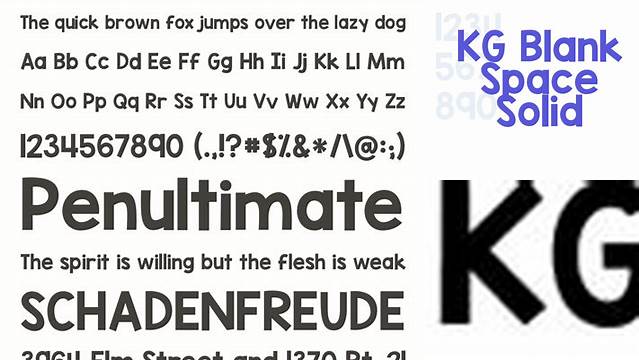
Hey guys! Are you looking for a super cool and versatile font? Look no further than the KG Blank Space Solid Regular font! This font is a total game-changer for designers, content creators, and anyone who just loves typography. It's clean, it's modern, and it's totally free to download. In this guide, we're going to dive deep into everything you need to know about this awesome font, from where to download it to how to use it in your projects. So, buckle up and let's get started!
What is KG Blank Space Solid Regular Font?
The KG Blank Space Solid Regular font is a beautifully crafted typeface designed by Kimberly Geswein. It's known for its clean lines, solid fill, and highly legible design, making it perfect for a wide array of applications. This font strikes a balance between modern and classic, giving it a timeless appeal that can enhance any project. Whether you’re designing a logo, creating social media graphics, or even just working on a presentation, KG Blank Space can add that professional touch you're looking for. Its simplicity is its strength, allowing it to pair well with other fonts and design elements without overpowering them. Plus, the fact that it's available for free makes it an incredible asset for both personal and commercial projects. So, if you’re seeking a font that combines elegance, versatility, and accessibility, KG Blank Space Solid Regular is definitely one to consider. The best part? You can easily incorporate it into your workflow and start creating stunning designs right away!
Using KG Blank Space Solid Regular Font in Graphic Design
When it comes to graphic design, the KG Blank Space Solid Regular font is a real powerhouse. Its clean and minimalist design makes it incredibly versatile, fitting seamlessly into a wide range of projects. Whether you're designing a sleek logo, eye-catching social media graphics, or a professional-looking website, this font has got you covered. One of the best things about KG Blank Space is its readability. The clear, solid characters ensure that your message gets across loud and clear, no matter the size or application. This is especially crucial for logos and branding materials, where legibility is key. Plus, its neutral style means it pairs well with other fonts, giving you the freedom to create dynamic and visually appealing designs. Think of pairing it with a script font for a touch of elegance or a bold sans-serif for a modern, edgy look. The possibilities are endless! When using KG Blank Space in your graphic design projects, don’t be afraid to experiment with different sizes, weights, and colors to see what works best for your specific needs. With a little creativity, you can transform this simple font into a design masterpiece. So go ahead, unleash your inner designer and see what you can create with KG Blank Space!
KG Blank Space for Logo Design
Logos are the face of a brand, and choosing the right font is crucial. The KG Blank Space Solid Regular font is an excellent choice for logo design due to its clean, modern, and highly legible style. A logo needs to be instantly recognizable and convey the brand's personality, and KG Blank Space's simplicity allows it to do just that. Its solid, bold characters make a strong statement, ensuring the logo stands out whether it's displayed on a website, business card, or billboard. The font’s neutrality also means it can be adapted to suit various industries and brand aesthetics. Imagine it in a sleek, minimalist tech logo or a bold, modern retail brand. The versatility of KG Blank Space allows designers to create logos that are both timeless and contemporary. Moreover, the font’s readability ensures that the brand name remains clear and memorable, even at smaller sizes. This is particularly important for logos that need to look good in a variety of contexts, from social media profiles to printed materials. When incorporating KG Blank Space into a logo, consider the overall brand identity and how the font can complement it. Play with spacing, kerning, and the addition of graphic elements to create a unique and impactful logo. With its clean lines and solid presence, KG Blank Space can help you create a logo that truly represents your brand.
Social Media Graphics with KG Blank Space Font
In the fast-paced world of social media, grabbing attention is key, and the right font can make all the difference. The KG Blank Space Solid Regular font is perfect for social media graphics because it’s clean, modern, and easy to read – even on small screens. Think about it: your social media posts need to stand out in a sea of content, and a font that’s both eye-catching and legible is a huge advantage. KG Blank Space excels in this area. Its clear, bold characters ensure that your message is delivered loud and clear, whether you're creating Instagram stories, Facebook posts, or Twitter headers. Plus, its versatile style means it can be used for a wide range of content, from promotional graphics to inspirational quotes. One of the best things about using KG Blank Space for social media is how well it pairs with other design elements. You can easily combine it with vibrant colors, engaging images, and other fonts to create visually stunning graphics that capture your audience's attention. Experiment with different sizes, weights, and colors to see what works best for your brand’s aesthetic. And because KG Blank Space is so readable, you can be confident that your followers will be able to quickly and easily digest your message. So, if you’re looking to elevate your social media game, KG Blank Space is definitely a font worth adding to your toolkit. It’s a simple yet powerful way to make your content shine!
Creating Presentations with KG Blank Space
When you're putting together a presentation, you want your slides to be clear, professional, and visually engaging. The KG Blank Space Solid Regular font is an excellent choice for presentations because it ticks all those boxes. Its clean, minimalist design ensures that your text is easy to read, even from the back of the room. And let's face it, nobody wants to squint at blurry, illegible slides! KG Blank Space's readability makes it perfect for headlines, body text, and even bullet points. The font’s neutrality also allows your content to take center stage. It doesn't distract from your message; instead, it enhances it by providing a clean and polished look. Plus, it pairs well with other design elements, like graphs, charts, and images, so you can create a cohesive and professional presentation. Another great thing about KG Blank Space is its versatility. Whether you're giving a formal business presentation or a more casual talk, this font fits the bill. It’s modern enough to feel current but also classic enough to be timeless. When using KG Blank Space in your presentations, think about using it in different sizes and weights to create visual hierarchy. Use it for headlines to make them pop and for body text to ensure readability. With KG Blank Space, you can create presentations that not only look great but also effectively communicate your message. It’s a surefire way to impress your audience!
KG Blank Space in Website Design
Your website is often the first impression people have of your brand, so it's crucial to make it look professional and inviting. The font you choose plays a huge role in this, and the KG Blank Space Solid Regular font is a fantastic option for website design. Its clean, modern aesthetic gives your site a polished and contemporary feel, while its excellent readability ensures that visitors can easily navigate and consume your content. Think about it – a website filled with hard-to-read text is a surefire way to drive people away. KG Blank Space solves this problem with its clear, crisp characters that look great at any size. Whether you're using it for headlines, body text, or navigation menus, this font keeps your site looking sharp and professional. Another big advantage of KG Blank Space is its versatility. It works well with a wide range of design styles, from minimalist to bold and colorful. This means you can easily incorporate it into your existing branding without having to overhaul your entire website. Plus, it pairs beautifully with other fonts, giving you the freedom to create unique and visually appealing typography combinations. When using KG Blank Space on your website, consider the overall user experience. Make sure your text is large enough to read comfortably, and use appropriate spacing and line height to improve readability. With KG Blank Space, you can create a website that not only looks stunning but also provides a seamless and enjoyable experience for your visitors. It’s a win-win!
Combining KG Blank Space with Other Fonts
One of the coolest things about the KG Blank Space Solid Regular font is how well it plays with others. Pairing fonts can be a bit of an art, but with KG Blank Space, it's actually pretty straightforward. Its neutral, clean design means it can work with a wide range of different typefaces, giving you tons of creative freedom. Think of KG Blank Space as the versatile foundation of your typography palette. You can pair it with a script font for a touch of elegance and personality, or you can combine it with a bold sans-serif for a modern and impactful look. For example, try pairing KG Blank Space with a flowing script font for headings to add a touch of sophistication, while using it for the body text to maintain readability. Or, if you're going for a more contemporary vibe, pair it with a strong, geometric sans-serif like Montserrat or Roboto. Another trick is to use different weights of KG Blank Space itself. Use the regular weight for body text and a bolder weight for headings to create a clear visual hierarchy. The key is to create contrast and balance. You want your fonts to complement each other without competing for attention. So, don’t be afraid to experiment and see what combinations you love. With a little practice, you’ll be creating stunning typography in no time!
KG Blank Space for Print Materials
Kerning and Tracking with KG Blank Space
Kerning and tracking are two important typography terms that deal with the spacing between letters. They might seem like small details, but they can have a big impact on the readability and visual appeal of your text. The KG Blank Space Solid Regular font, with its clean lines and consistent letterforms, benefits from careful attention to kerning and tracking. Let's break down what these terms mean and how you can use them effectively. Kerning refers to the spacing between individual letters. The goal of kerning is to create visually consistent spacing, even though some letter combinations naturally have more or less space between them. For example, the letters